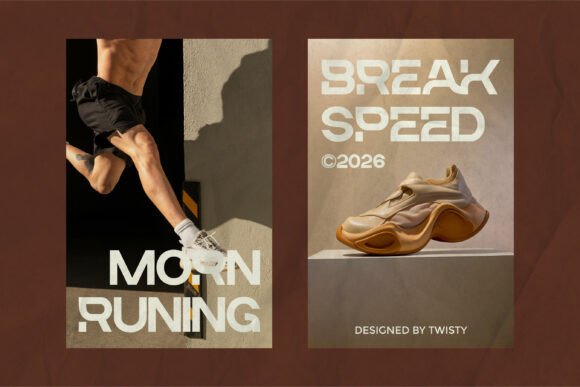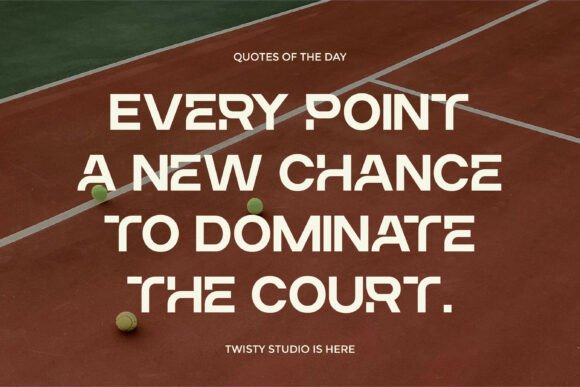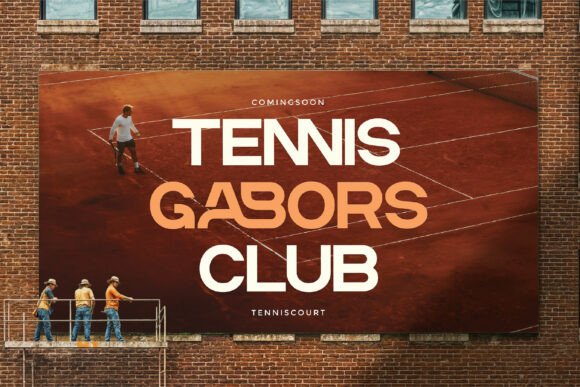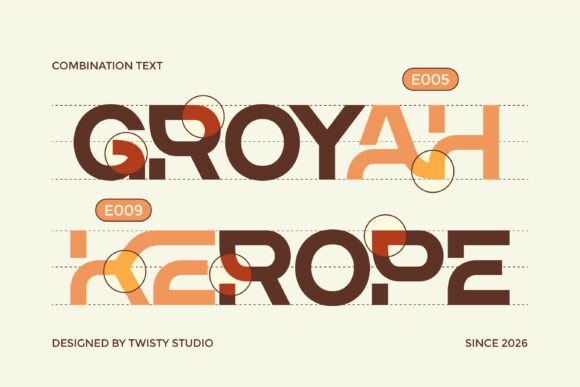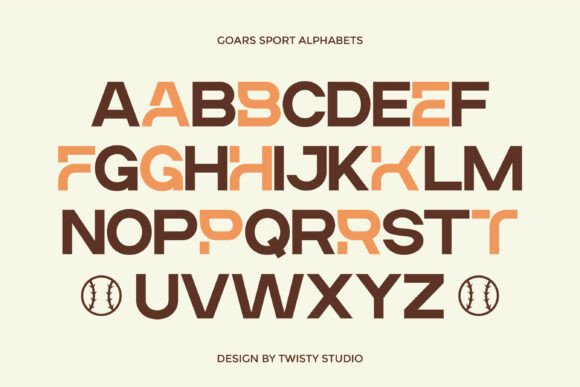
Introducing Goars Font: The Ultimate Bold Sport Display Typeface
In the world of typography, a font can make or break the visual identity of a brand. For sports and high-performance brands, a bold and dynamic font is essential to convey speed, strength, and competitive energy. This is where Goars Font comes in – a modern bold sport display typeface designed to make a lasting impression. In this article, we’ll dive into the features and benefits of Goars Font, and explore why it’s the perfect choice for designers and crafters looking to create a commanding visual presence.
The Design Philosophy Behind Goars Font
Goars Font is crafted with a clear design philosophy in mind: to create a font that embodies the spirit of sports and high-performance branding. The font’s solid letterforms, sharp cuts, and powerful athletic style work together to create a bold and dynamic visual presence. The designers behind Goars Font aimed to create a font that not only looks great but also maintains strong readability, even at smaller sizes.
Key Features of Goars Font
So, what makes Goars Font stand out from the rest? Here are some of its key features:
• Bold and Dynamic Design: Goars Font features solid letterforms with sharp cuts, giving it a powerful and athletic look that’s perfect for sports and high-performance branding.
• High Readability: Despite its bold design, Goars Font maintains strong readability, making it suitable for use across various media, including digital and print.
• Versatile: Goars Font is designed to work well in a variety of contexts, from logos and headlines to posters and advertisements.
• Modern and Fresh: Goars Font has a distinctly modern feel, making it perfect for brands looking to refresh their visual identity.
Why Designers and Crafters Love Goars Font
Goars Font has quickly become a favorite among designers and crafters, and for good reason. Here are some reasons why:
• High-Quality Design: The font is designed to high standards, ensuring a professional finish for any project.
• Customizable: Goars Font can be easily customized to fit a brand’s specific needs, making it a versatile choice.
• Support for Multiple Languages: Goars Font supports multiple languages, making it a great choice for global brands.
How to Use Goars Font in Your Design Projects
Ready to try Goars Font in your design projects? Here are some tips to get you started:
• Pair it with Other Fonts: Goars Font works well when paired with other fonts, creating a visually appealing contrast.
• Use it for Headlines and Logos: Goars Font is perfect for headlines and logos, where a bold and dynamic font is needed.
• Experiment with Colors: Goars Font looks great in a variety of colors, so don’t be afraid to experiment and find the perfect combination for your brand.
In conclusion, Goars Font is a modern bold sport display typeface that’s perfect for designers and crafters looking to create a commanding visual presence. With its solid letterforms, sharp cuts, and powerful athletic style, Goars Font is sure to make a lasting impression. Whether you’re working on a sports brand, a high-performance product, or simply want to add a bold touch to your design project, Goars Font is an excellent choice.